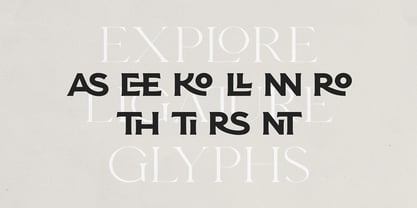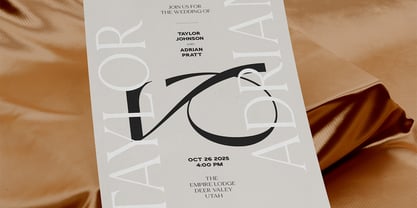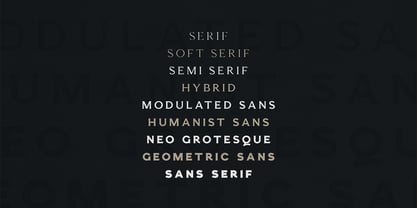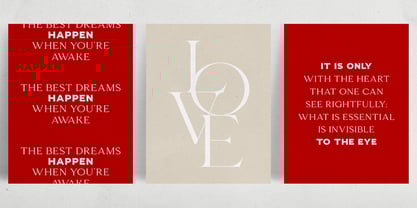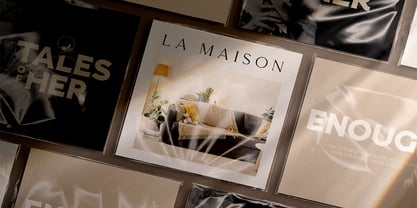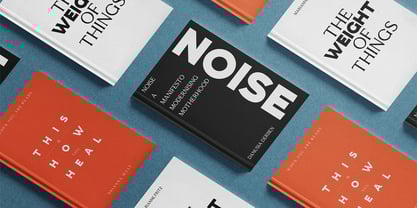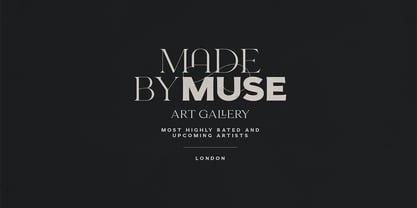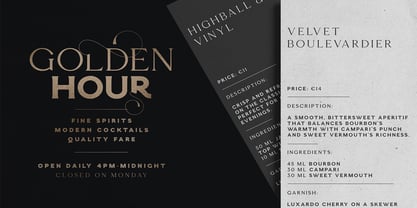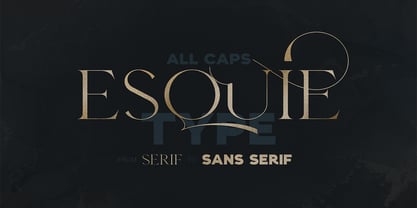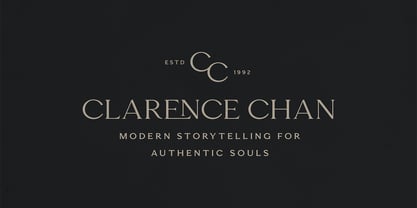
Esquie
The Esquie Font Family was designed by Vladimir Fedotov, Plamen Petrov and published by VP Creative Shop. Esquie contains 9 styles and family package options. More about this family
✦ Esquie — The Evolution of Elegance ✦
From Serif Grace to Sans Simplicity | 8 Fonts
Esquie is an experimental all-caps typeface that bridges the timeless beauty of serifs with the bold clarity of sans-serifs. Designed as a typographic journey, Esquie offers 8 masterfully crafted styles that transition seamlessly from classic serif to sleek sans-serif — making it a powerful tool for branding, editorial design, and creative expression.